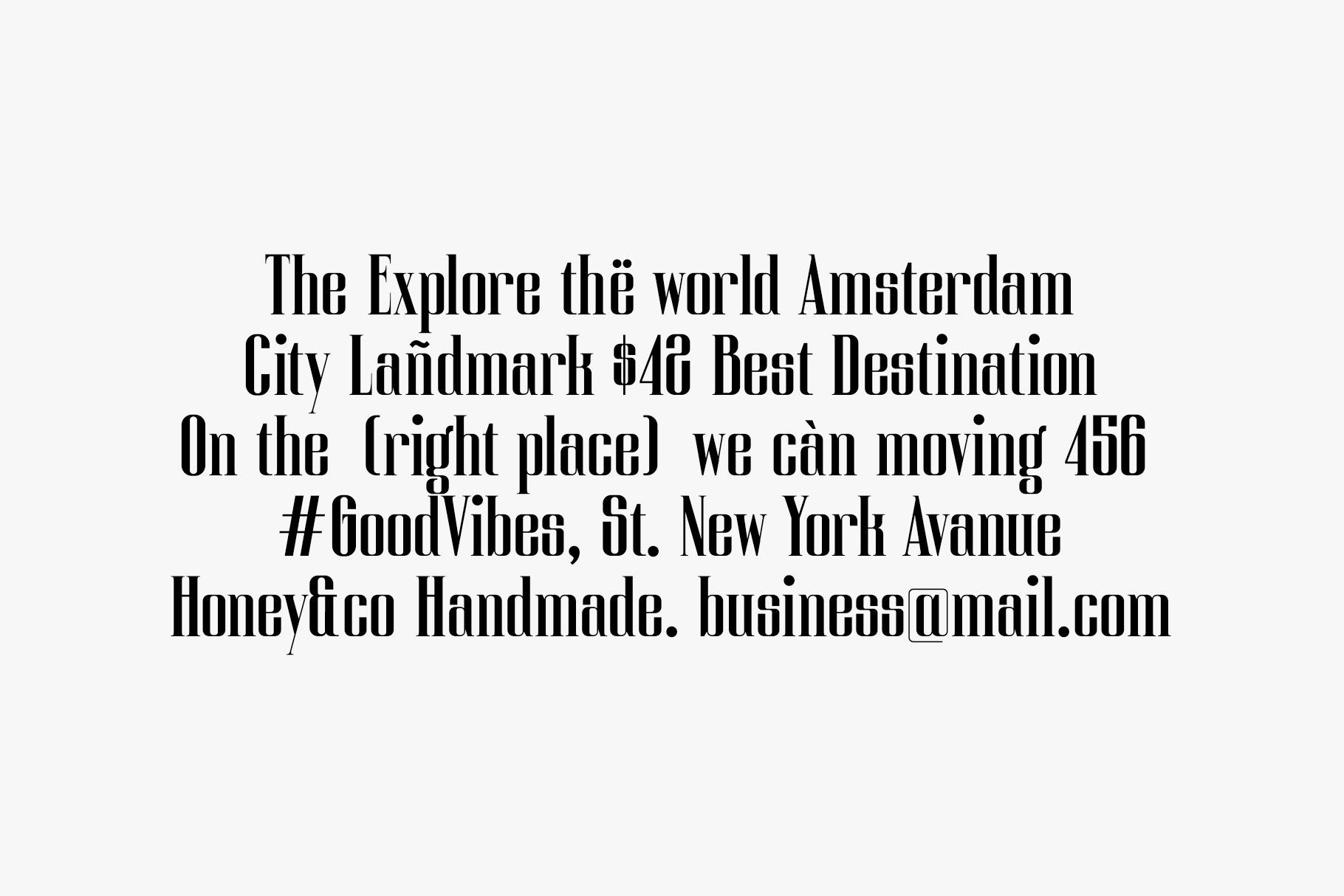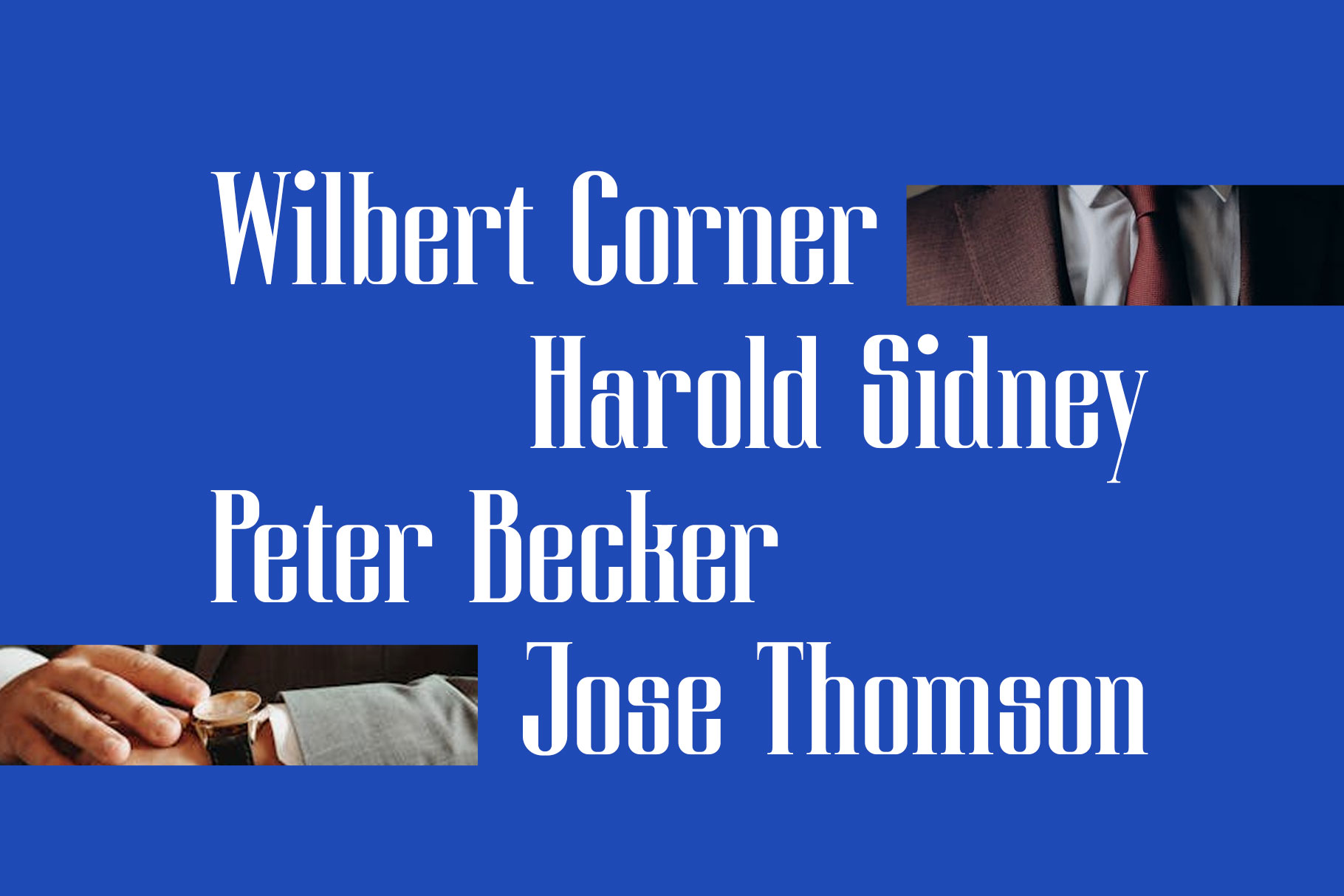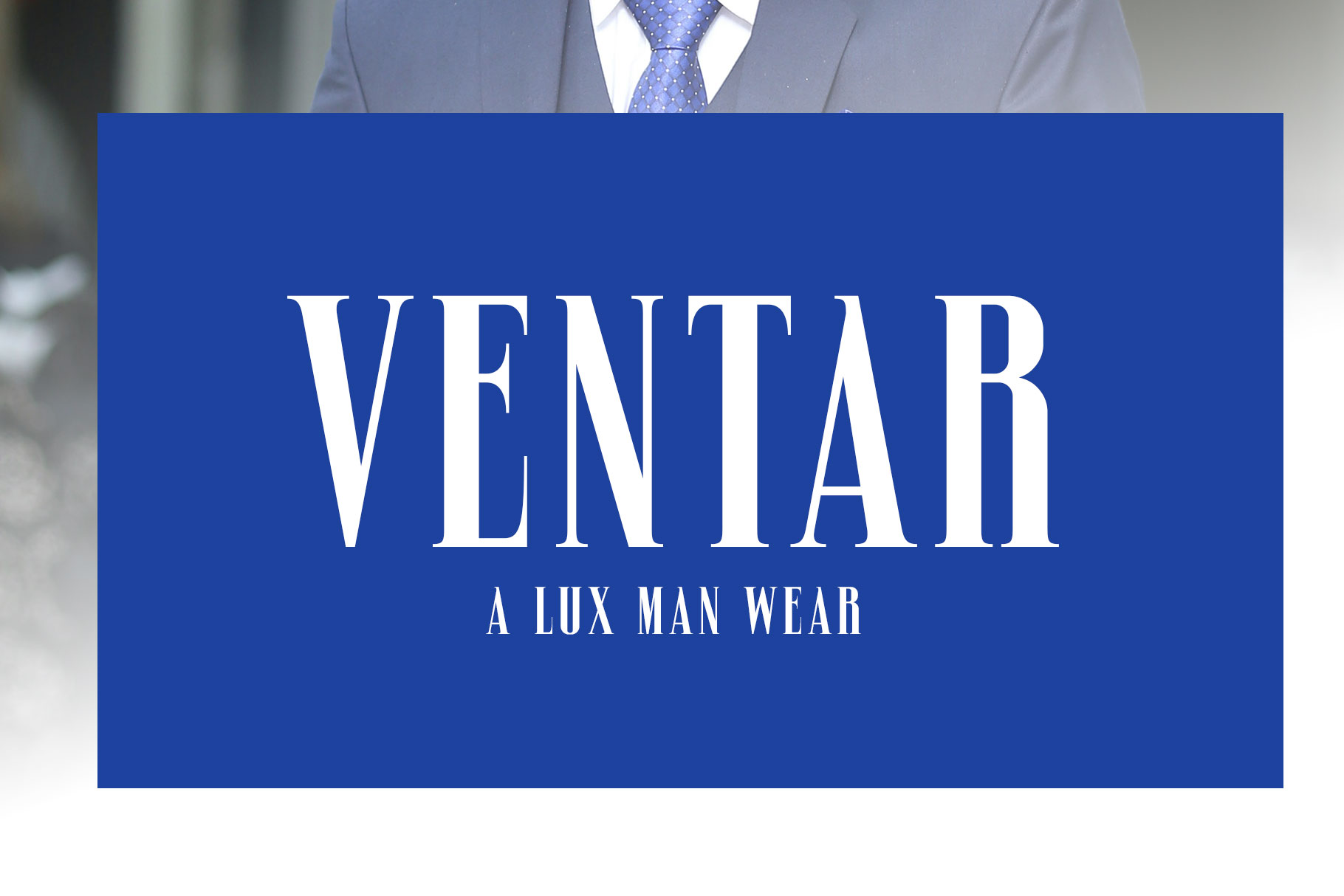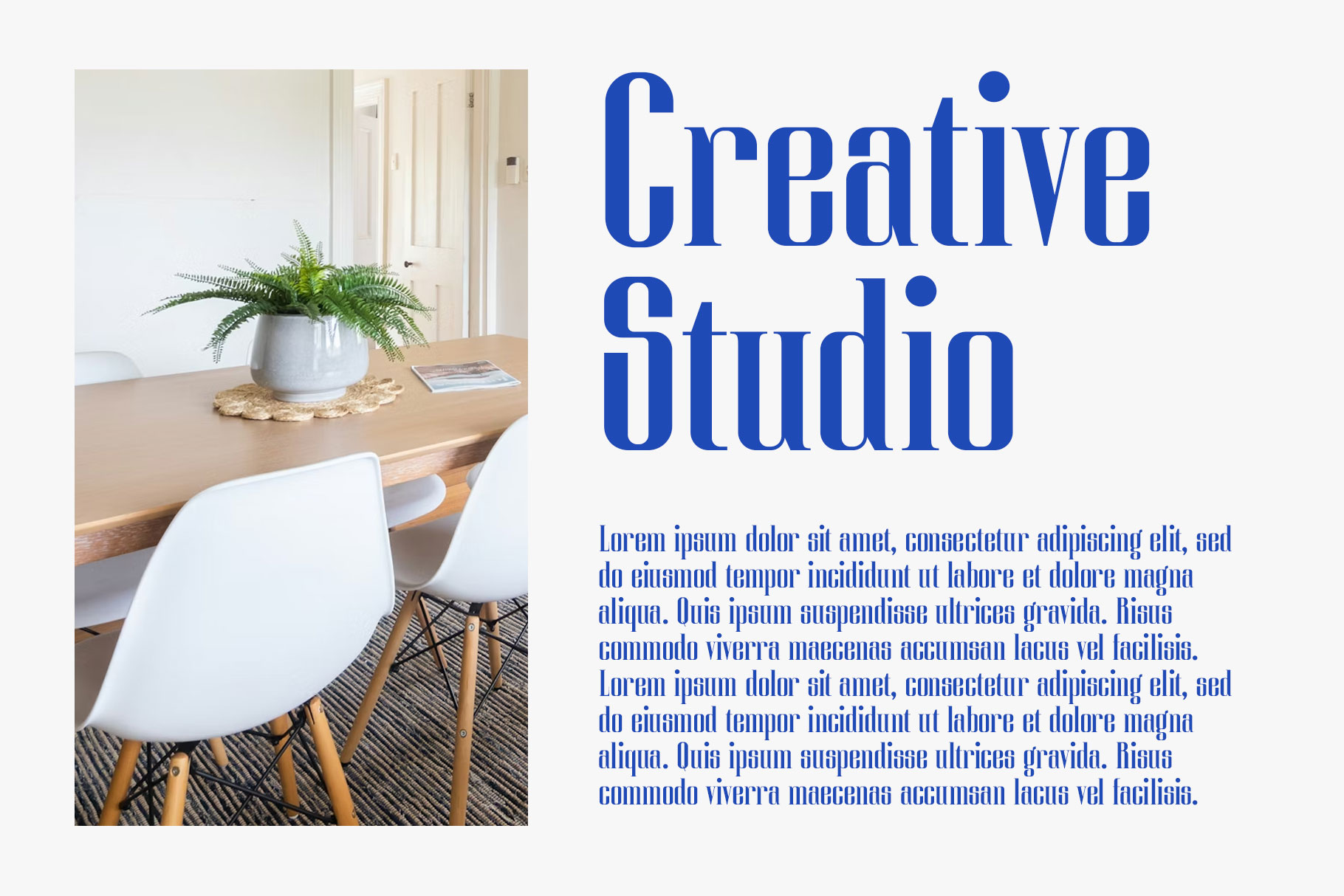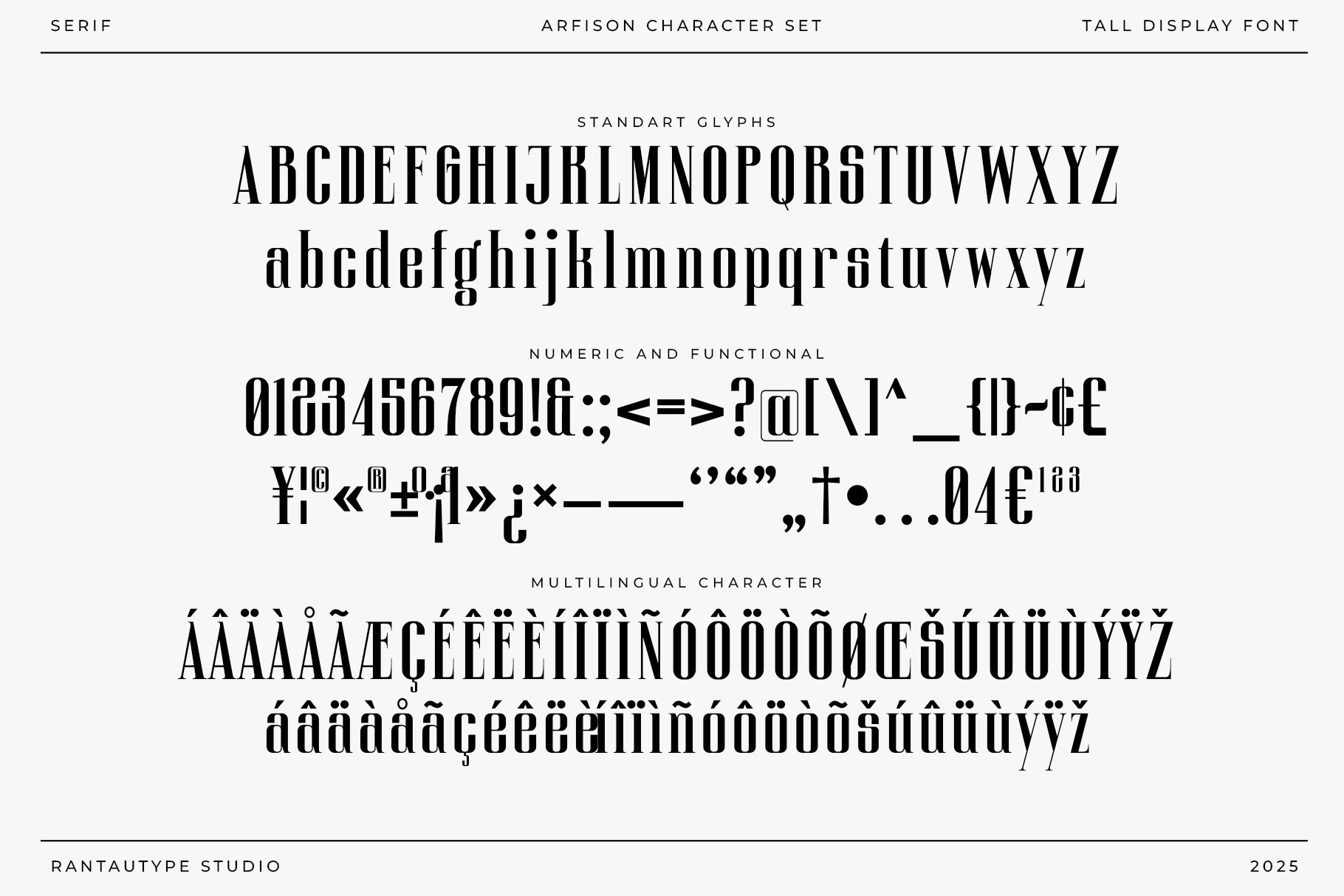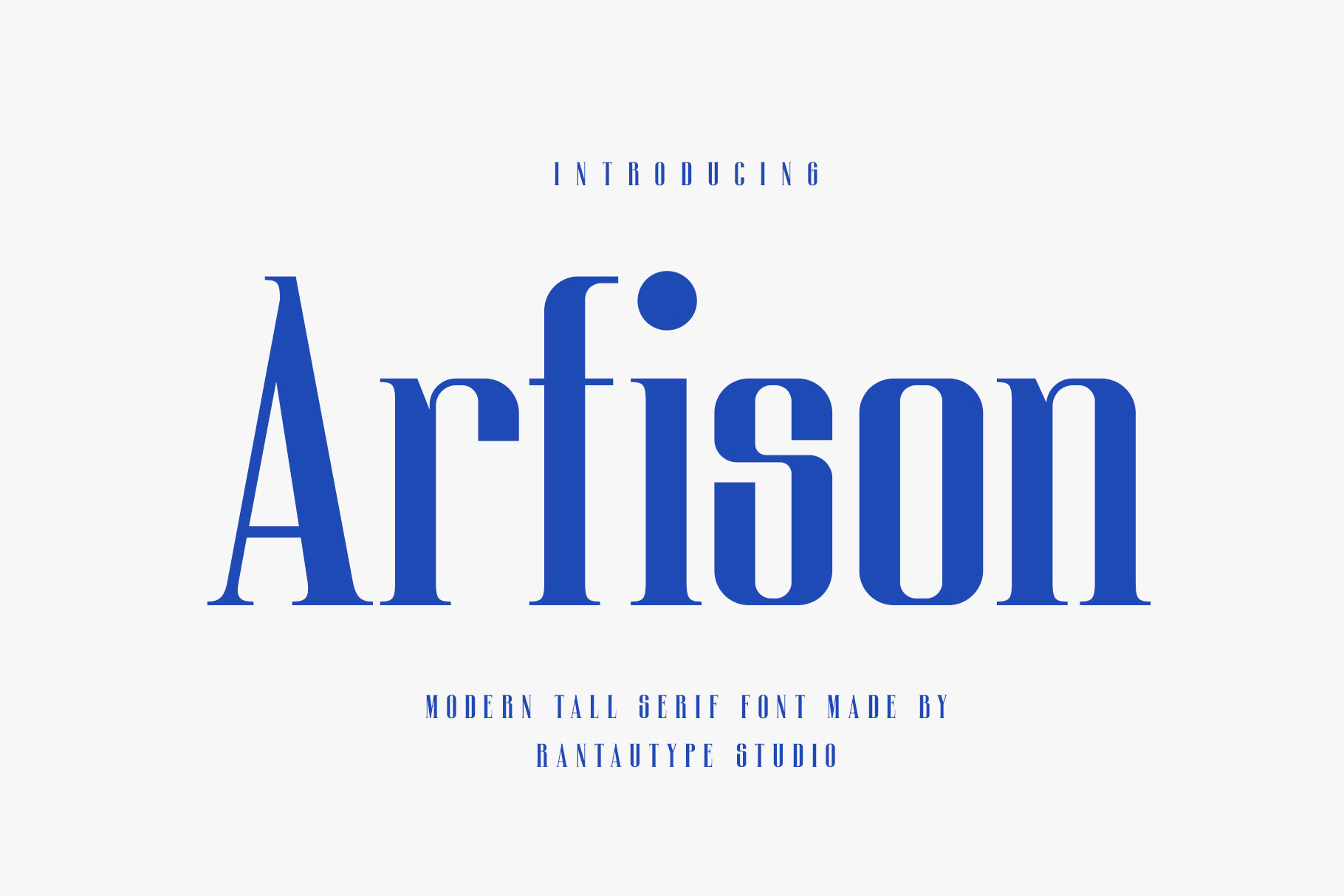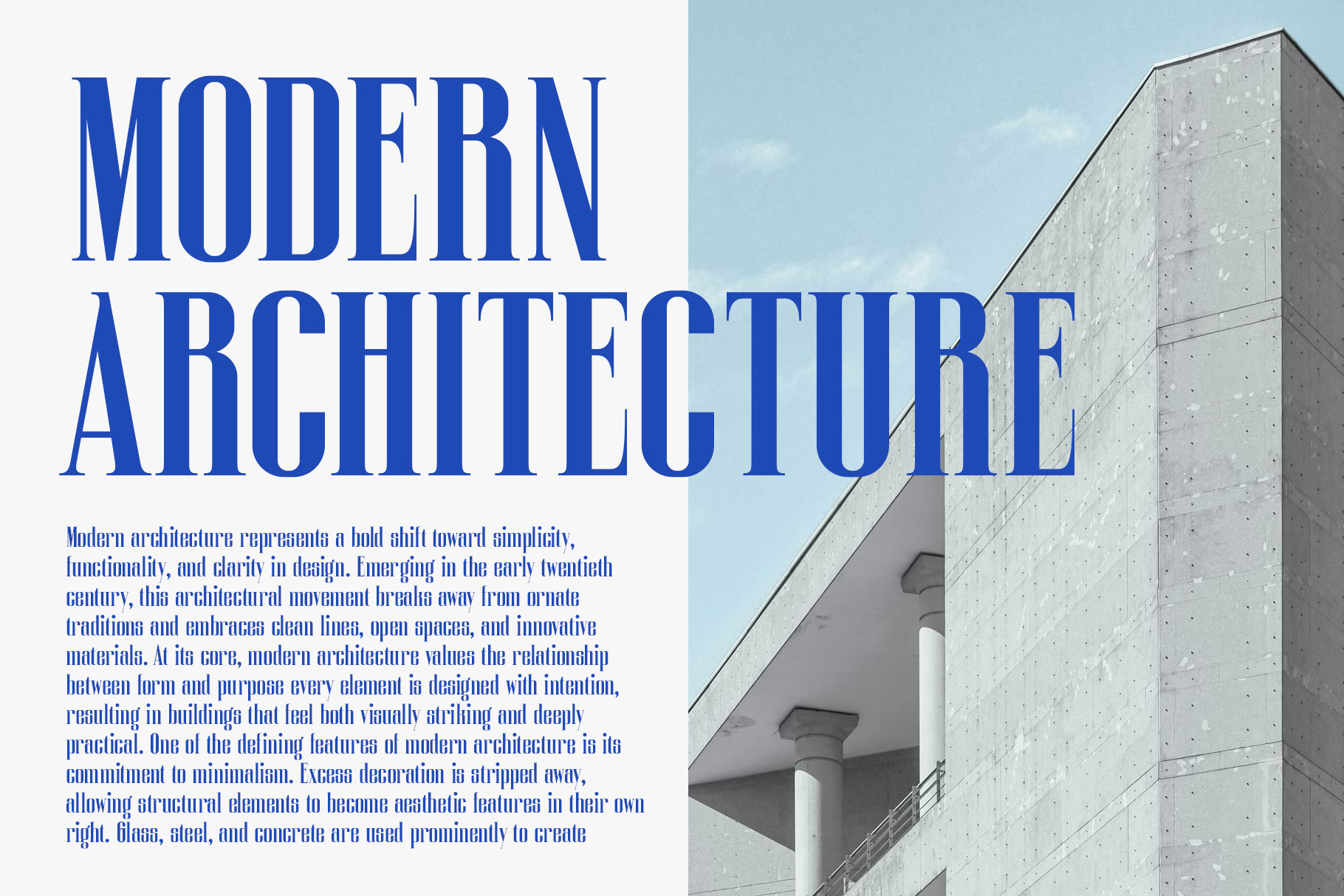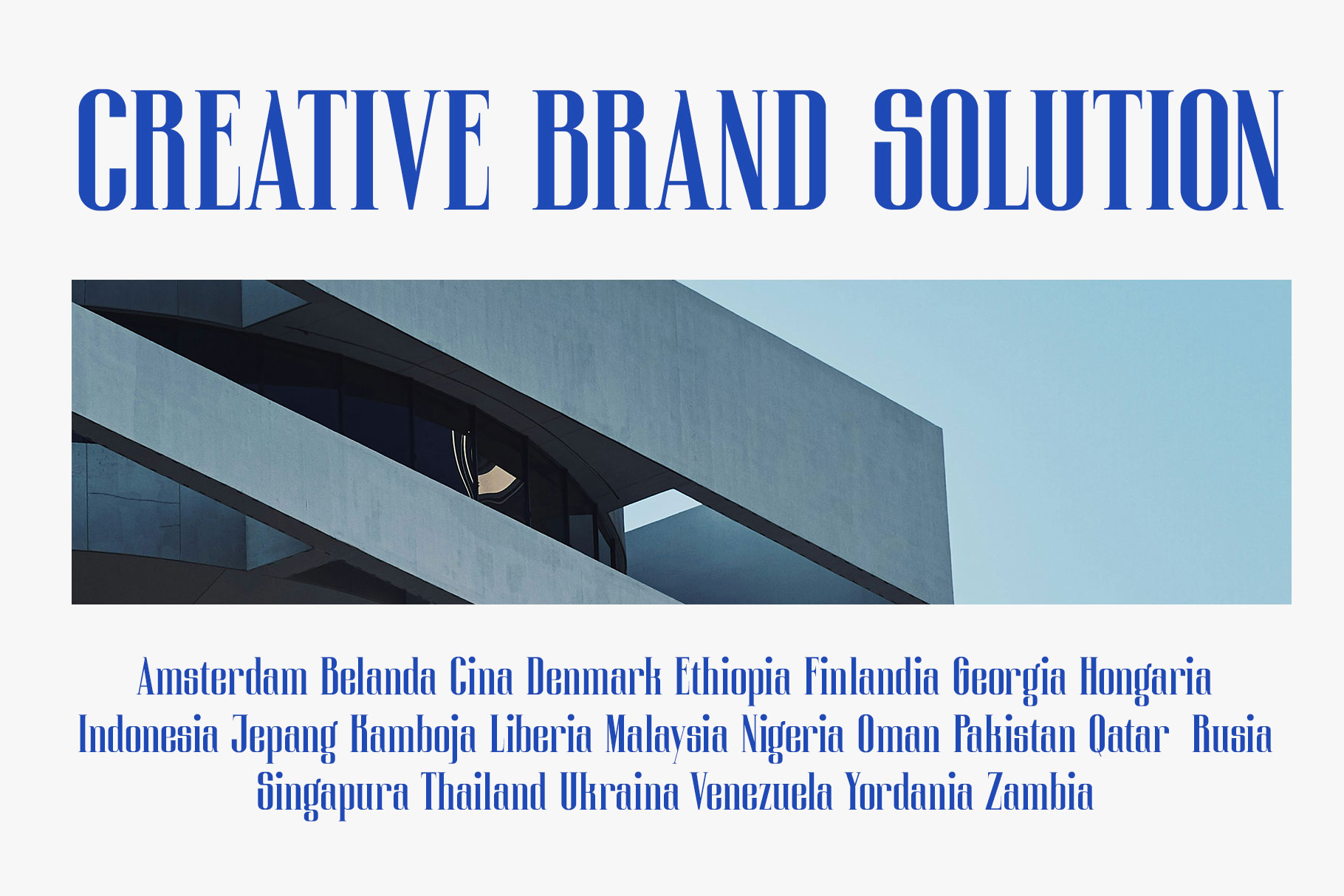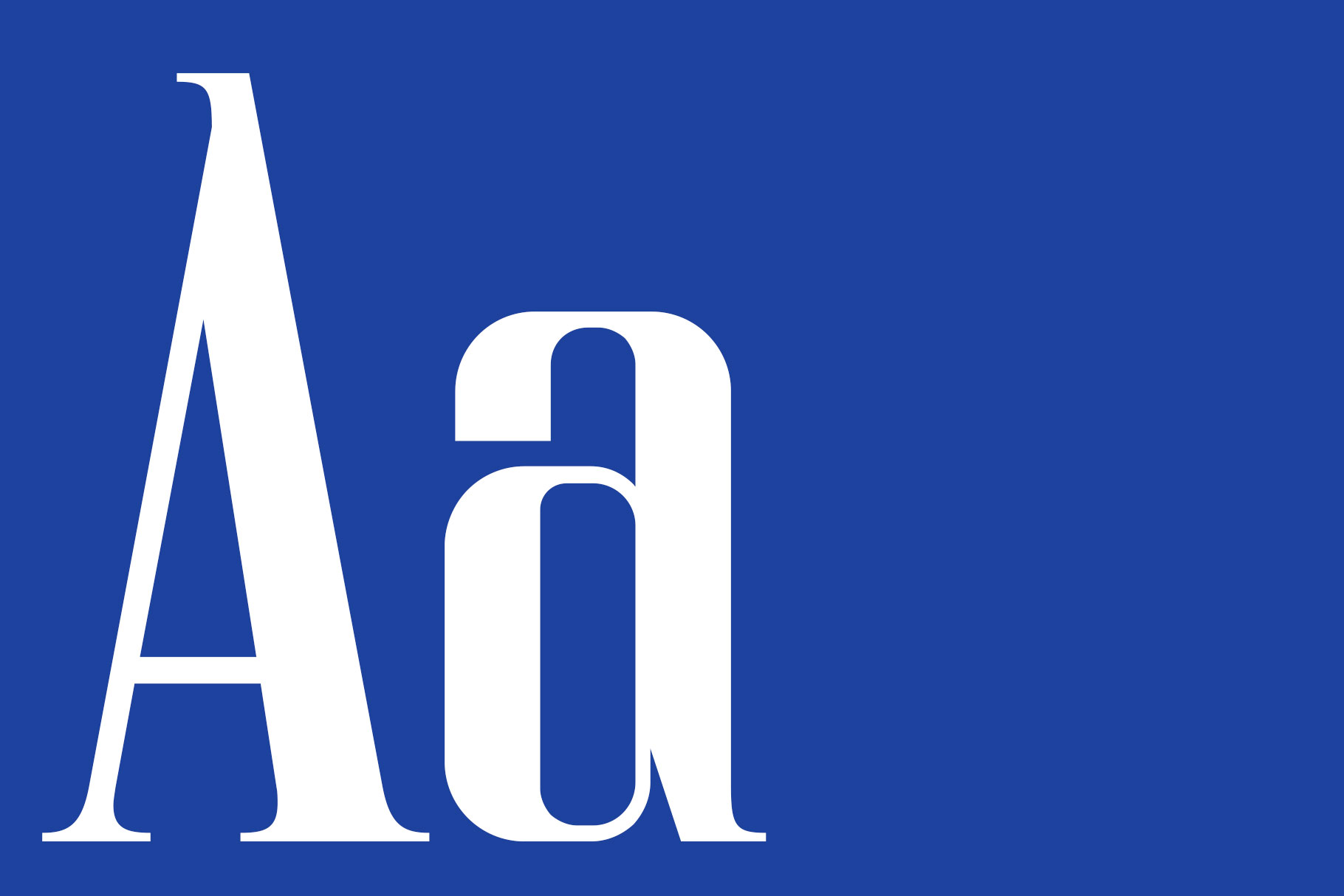
Arfison Modern Tall Serif Font
Arfison is modern tall serif font embodies the perfect balance between contemporary minimalism and timeless sophistication. The tall proportions of the font allow for a naturally graceful rhythm in text, creating a smooth flow that feels clean and airy.
Arfison y is a perfectly choice for any creative endeavor, creating, modern, lifestyle design such as logotype, title, cover, branding, invitations, wedding designs, display and magazine, social media posts, advertisements, printed quotes, product packaging, corporate brand, product designs, labels, photography, watermarks, special events and any other project with modern touch.